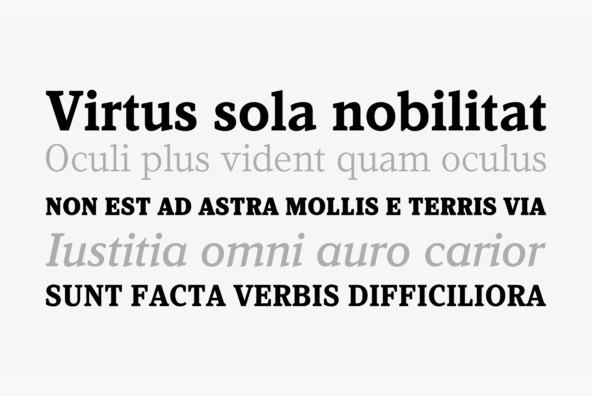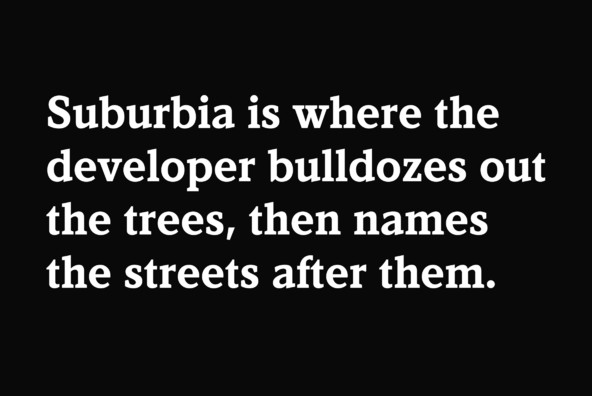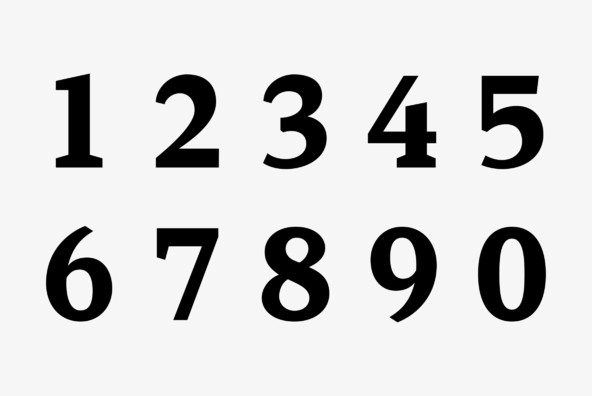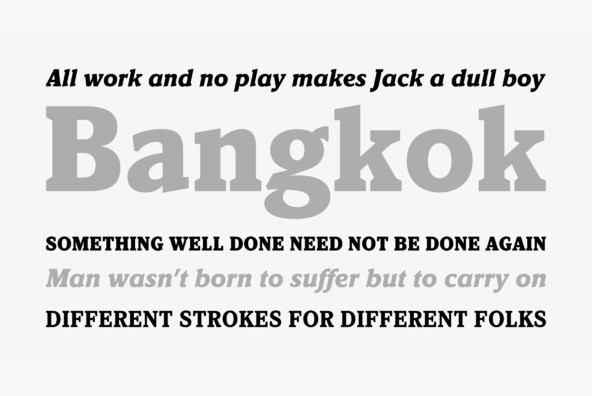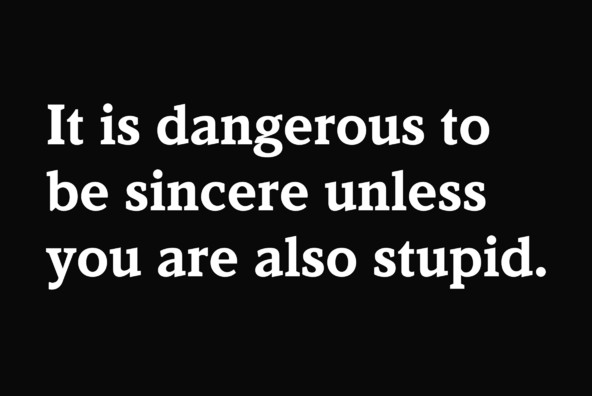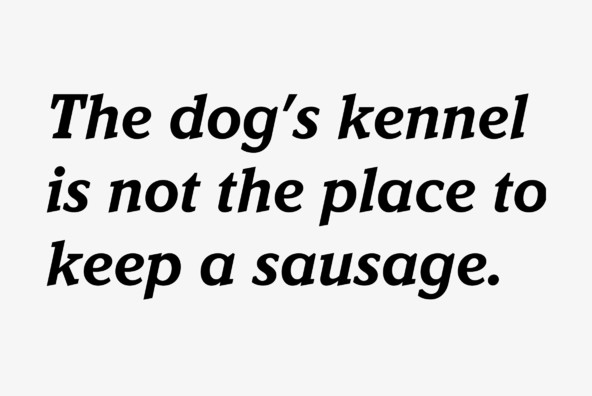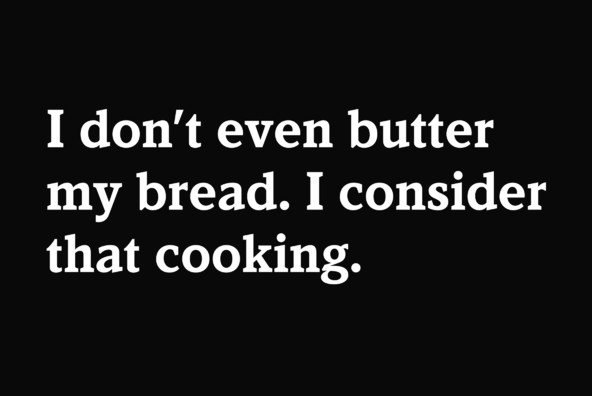
Kandal is a wedge-serif face with old style or antique qualities. It has low contrast in weight between thicks and thins, even as it gets bolder. Its proportions are slightly condensed, and the color and texture of Kandal Book is not unlike Century Old Style.